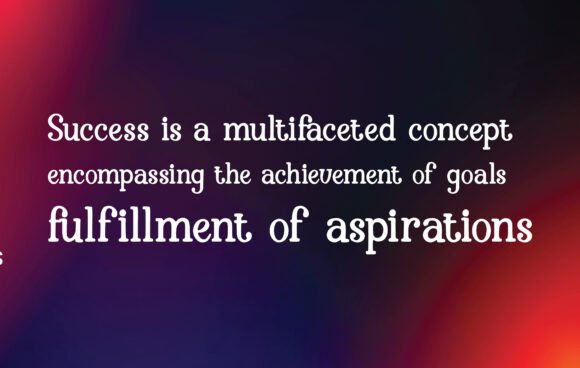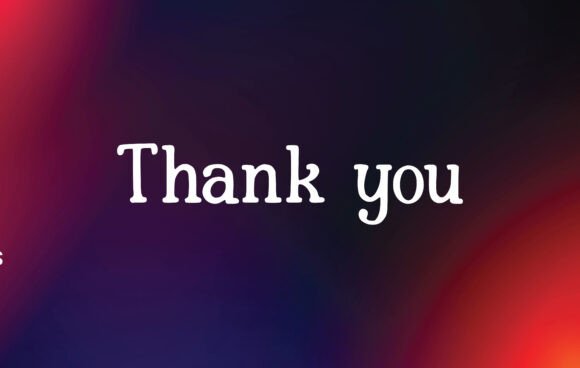
Banks Font: The Ultimate Design Companion for Creative Minds
In the world of design, a font can make all the difference. It can elevate your project from ordinary to extraordinary, convey the right tone and personality, and leave a lasting impression on your audience. This is where Banks Font comes in – a versatile, eye-catching, and highly readable typeface designed to bring your creative ideas to life.
What Makes Banks Font Stand Out?
Banks Font is crafted to be a go-to favorite for designers and crafters alike. Its clear and easy-to-read design makes it an excellent choice for both titles and body text, offering the perfect balance of style and legibility. Whether you’re working on magazine covers, t-shirts, social media posts, branding, wedding invitations, or greeting cards, this font fits right in with its unique blend of personality and sophistication.
One of the key benefits of Banks Font is its incredible versatility. It’s designed to work beautifully across a wide range of applications, from digital media to print. This means you can use it to create stunning visual content for various platforms, including:
- Magazine Covers: Grab attention with bold, eye-catching titles that set the tone for your publication.
- T-Shirts and Merchandise: Create trendy, wearable designs that appeal to a wide audience.
- Social Media Posts: Elevate your brand’s online presence with stylish, engaging content.
- Branding and Logo Design: Establish a strong visual identity with a font that communicates your brand’s personality.
- Wedding Invitations and Greeting Cards: Add a touch of elegance and sophistication to your designs.
Why Choose Banks Font?
With so many fonts available, why should you choose Banks Font for your next project? Here are a few compelling reasons:
- Readability: Its clear design ensures that your text is easy to read, even at smaller sizes.
- Style and Personality: Banks Font brings a unique blend of modernity and charm to your designs.
- Flexibility: Use it for both headings and body text, or mix and match to create visual interest.
- Timeless Appeal: Unlike trendy fonts that quickly go out of style, Banks Font is designed to stand the test of time.
Tips for Using Banks Font Effectively
To get the most out of Banks Font, consider the following tips:
- Experiment with Sizes: Play around with different font sizes to create visual hierarchy and emphasis.
- Mix and Match: Combine Banks Font with other typefaces to add depth and interest to your designs.
- Pay Attention to Color: Choose colors that complement the tone and personality of your project.
- Don’t Overdo It: Use Banks Font judiciously to avoid overwhelming your design.
Banks Font is more than just a typeface – it’s a design companion that can help you bring your creative ideas to life. With its versatility, readability, and style, it’s an excellent choice for designers and crafters looking to elevate their projects. Whether you’re a seasoned pro or just starting out, Banks Font is sure to become a go-to favorite in your design arsenal.